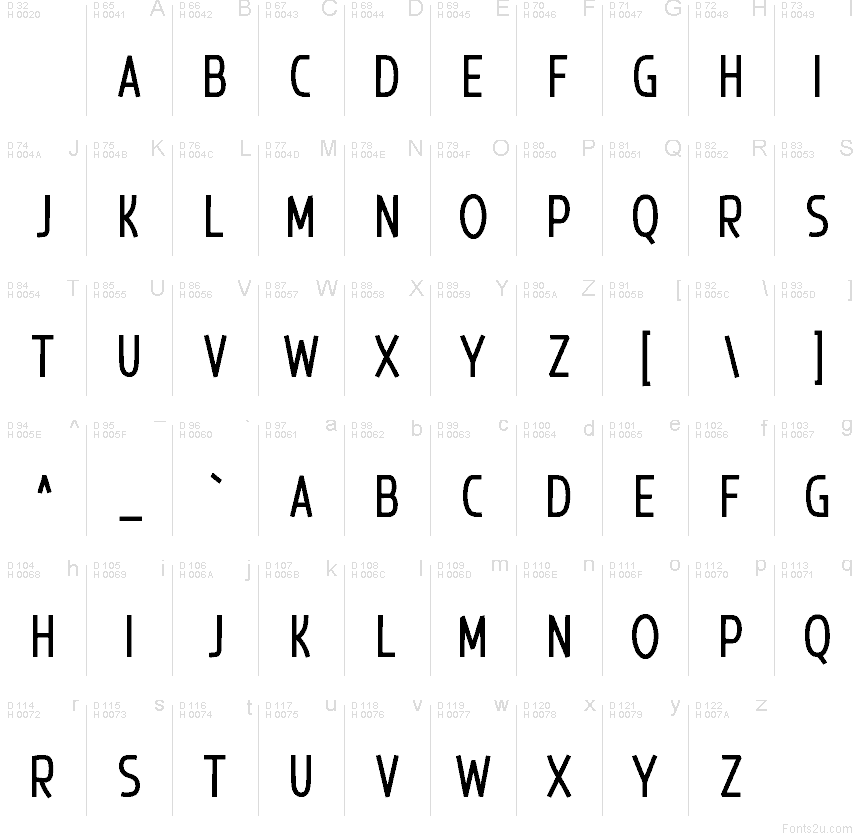
Mellowed
Mellowed font by HannaBie Creative Studio is a free comic display typeface that dials the energy up without sacrificing clarity. Its tall, slightly wobbly letters feel hand-drawn and animated, but the strokes stay neat and consistent, so text doesn’t collapse into a chaotic jumble. The narrow shapes help you squeeze big, shouty words into tight spaces while still looking bold and readable.
Using Mellowed, you can bring punchy character to kids’ book covers, comic panels, playful posters, YouTube thumbnails, social media graphics, and quirky branding. This free font shines when set large, where its stretched forms and subtle wobble really show. Pair it with a clean, neutral sans serif for body text to keep the fun headlines grounded and easy to scan.